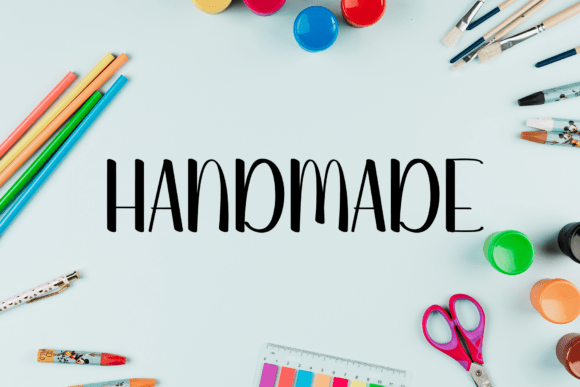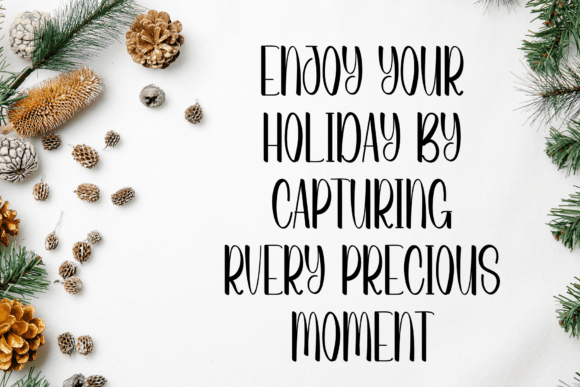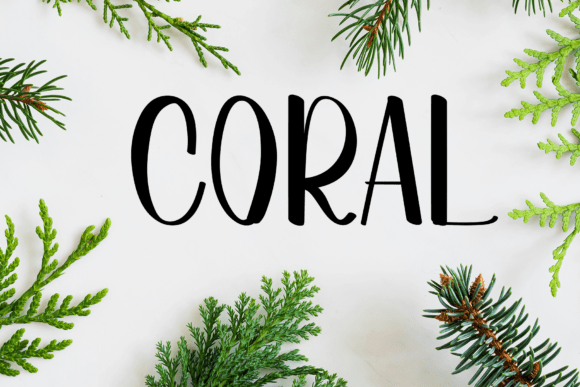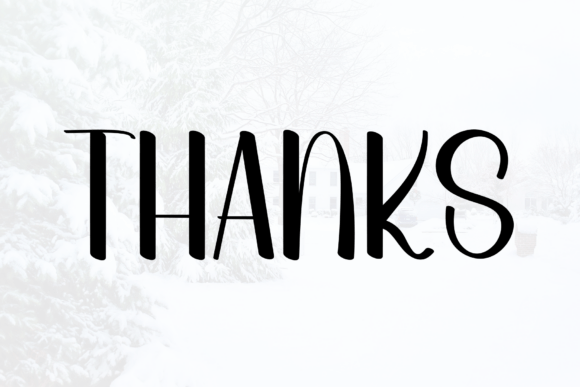
The Quest for the Perfect Font: Discovering Gorgeous
I’ll never forget the time I was working on a branding project for a cozy little café. I had spent hours perfecting the logo design, but something was off. The font I was using just didn’t feel right – it was too formal, too stiff. I needed something that would evoke the warm, fuzzy feeling of sipping a latte on a chilly morning. That’s when I stumbled upon Gorgeous, a charming handwritten font that stole my heart.
A First Impression: What Makes Gorgeous Special
Gorgeous is more than just a font – it’s an experience. Its smooth strokes and organic lines transport you to a relaxed atmosphere, perfect for a variety of design projects. Whether you’re creating branding materials, invitations, or social media graphics, Gorgeous is the perfect companion.
So, what do I love about Gorgeous? Here are a few things that make it stand out:
- ✨ Smooth, flowing lines that give it a natural, handwritten feel
- ✅ Perfect for branding – it’s unique, yet approachable and friendly
- 💕 Emotional connection – it evokes feelings of warmth and comfort
Of course, no font is perfect. A few quirks to keep in mind:
- 🤔 Legibility at small sizes – it may get a bit fuzzy at very small sizes, so use it wisely
- ⚠️ Limited use in formal contexts – Gorgeous is best suited for creative, informal projects
The Story Behind Gorgeous: Designer Inspiration
While the true story behind Gorgeous remains a mystery, it’s easy to imagine that it was crafted with love and care. Perhaps the designer, fueled by a passion for handwriting and typography, poured their heart into creating a font that would bring joy to others. Whatever the inspiration, Gorgeous is a testament to the power of beautiful typography.
| Font Name | Gorgeous Font |
| Author | KC Production |
| What makes Gorgeous suitable for branding? | Gorgeous has a unique, yet approachable feel that makes it perfect for branding projects. Its smooth strokes and organic lines evoke a sense of warmth and comfort. |
| Is Gorgeous difficult to read? | Like any handwritten font, Gorgeous may be less legible at very small sizes. However, at larger sizes, it’s clear and easy to read. |